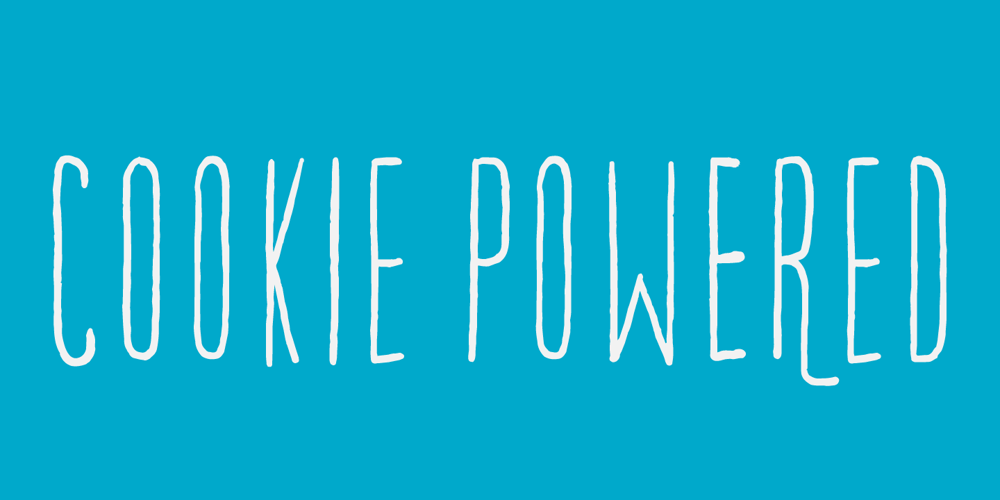
Cookie Powered Font Family was designed by Jakob Fischer and published by PizzaDude.dk. Cookie Powered contains 1 styles and family package options. Tall, thin, grid, legible and handmade! What’s not to like?! The font was made using a squared paper as a base for the lines. However, I managed to keep the free spirit of the handmade look, despite the guides. Play around with the 4 different versions of each letter and the swashes to make your text stand out!